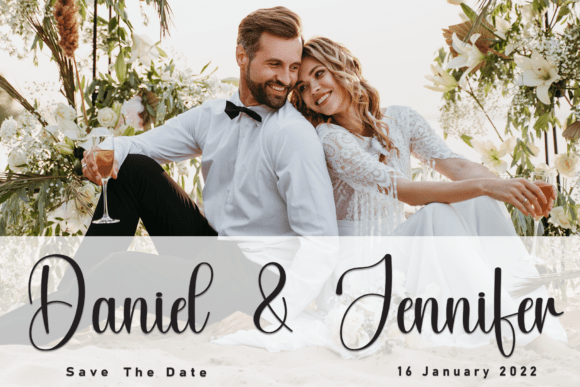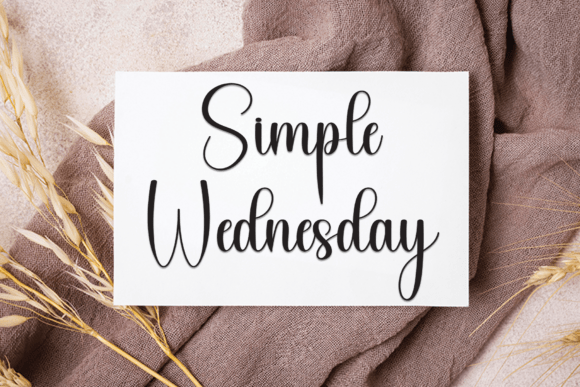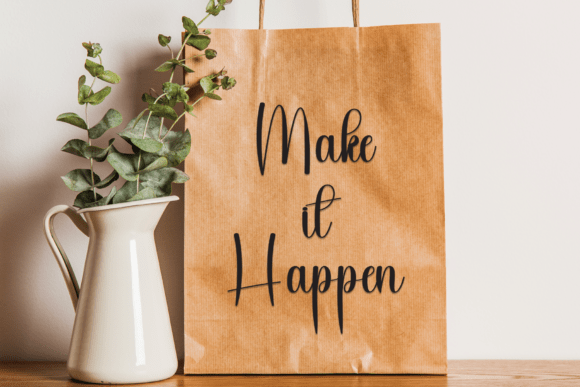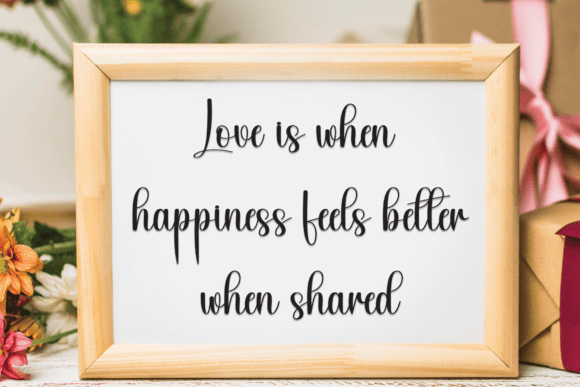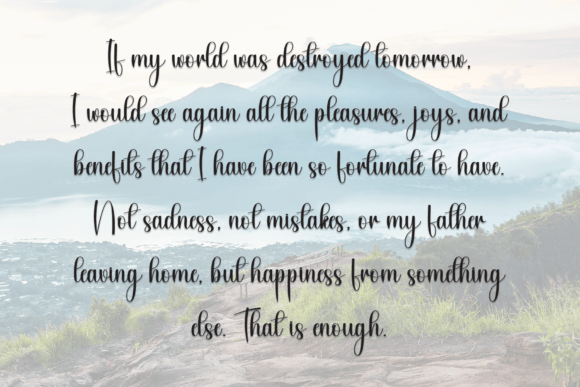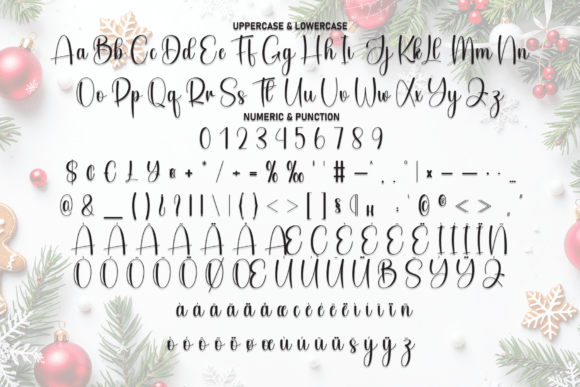
Unwrap the Magic of Christmas with the Perfect Font
It’s the most wonderful time of the year, and what better way to spread the cheer than with a captivating Christmas font? As a designer or crafter, you’re likely on the lookout for a font that can add a touch of magic to your holiday projects. Look no further! Our sweetly inviting handwritten display font is here to unleash a wave of charm and make your designs truly unforgettable.
The Perfect Blend of Playfulness and Elegance
Our Christmas font is a delightful, playful, and elegant solution for any project that needs a sprinkle of fun. Its friendly ambiance embodies each letter, making it the perfect choice for designing wedding invitations, crafting touching cards, or flavoring any project that could use a dash of personality. Whether you’re working on a holiday-themed design, a wedding invitation, or a simple greeting card, this font is sure to give your creations a captivating appeal that resonates with your audience.
Why Choose Our Christmas Font?
- Unique and Handwritten**: Our Christmas font is a one-of-a-kind, handwritten display font that adds a personal touch to any design.
- Playful and Elegant**: The font strikes the perfect balance between playfulness and elegance, making it suitable for a wide range of projects.
- Easy to Read**: The font is designed to be easy to read, even at smaller sizes, making it perfect for use on invitations, cards, and other materials.
- Versatile**: Our Christmas font can be used for a variety of projects, from holiday-themed designs to wedding invitations and more.
Ideas for Using Our Christmas Font
Our Christmas font is incredibly versatile, and the possibilities are endless! Here are a few ideas to get you started:
- Holiday-themed designs**: Use our Christmas font to create festive holiday designs, such as Christmas cards, gift tags, and decorations.
- Wedding invitations**: Add a touch of elegance and whimsy to your wedding invitations with our beautiful handwritten font.
- Greeting cards**: Create personalized and heartfelt greeting cards for special occasions, such as birthdays, anniversaries, and more.
- Social media graphics**: Use our Christmas font to create eye-catching social media graphics, such as holiday-themed posts and festive announcements.
Tips for Getting the Most Out of Our Christmas Font
To make the most of our Christmas font, here are a few tips to keep in mind:
- Experiment with colors**: Try pairing our Christmas font with a range of colors to create a unique and eye-catching design.
- Play with sizes**: Experiment with different font sizes to create visual interest and hierarchy in your design.
- Add embellishments**: Consider adding embellishments, such as holly leaves or snowflakes, to give your design an extra touch of festive flair.
Our Christmas font is the perfect solution for designers and crafters looking to add a touch of magic to their holiday projects. With its unique, handwritten design, playful and elegant vibe, and versatility, this font is sure to become a favorite in your design toolkit. So why wait? Unwrap the magic of Christmas with our captivating font, and make your designs truly unforgettable.